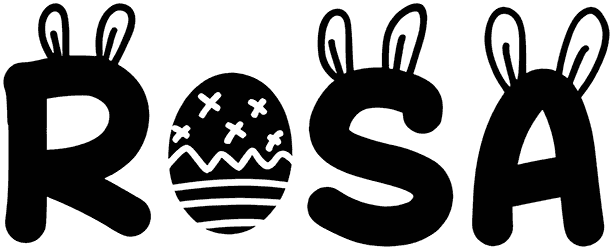
Rosa Font
Your happy-themed design will become so adorable if you set this bunny font on your words. The cute visual of Rosa font’s letters will hook a lot of viewers, but you shouldn’t count on lowercase letters. Set this easter font on your new kindergarten poster and see how unique it will be.